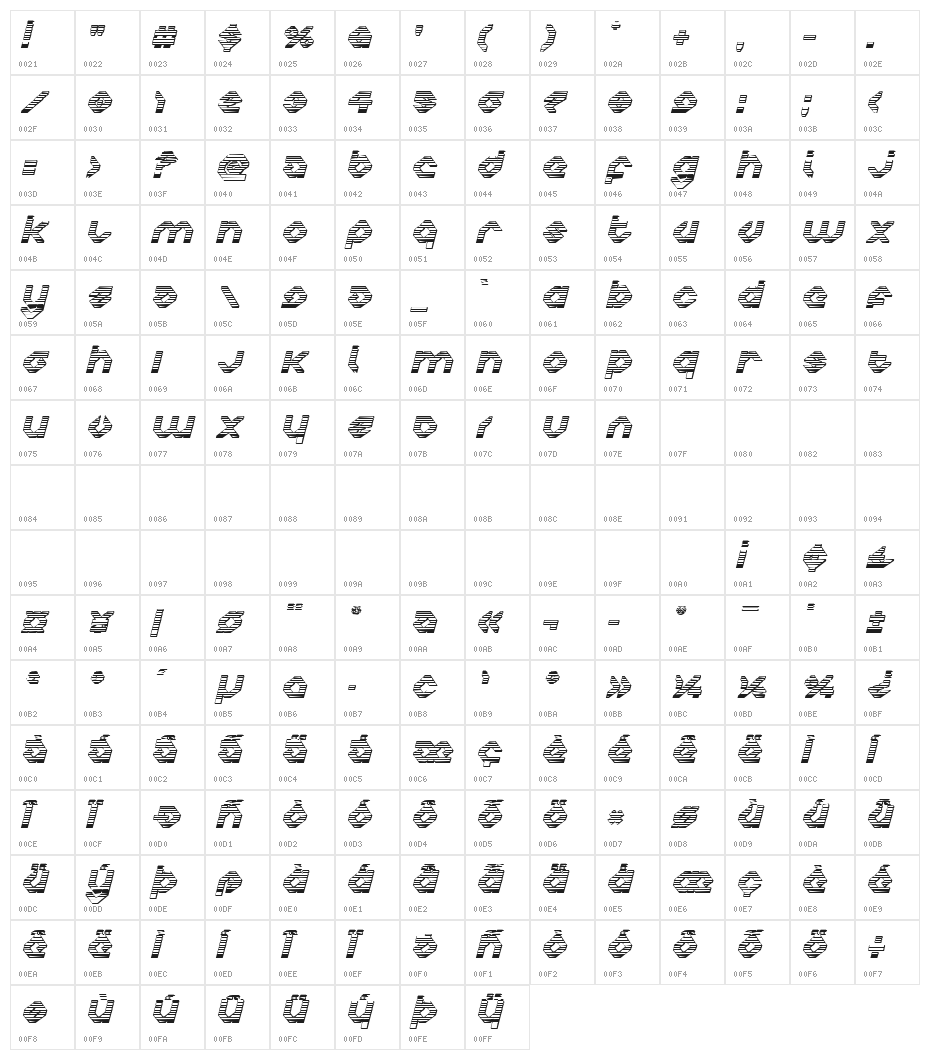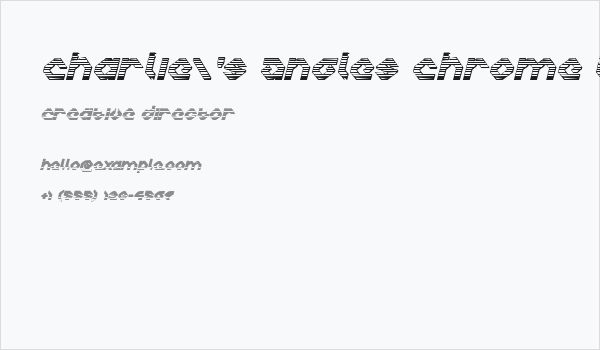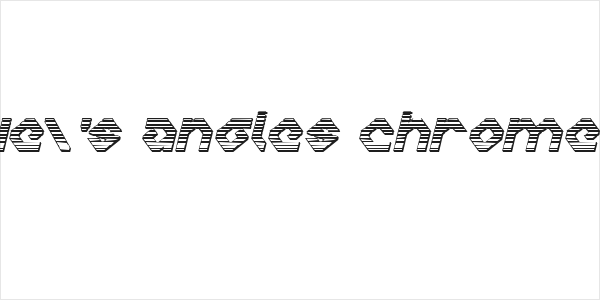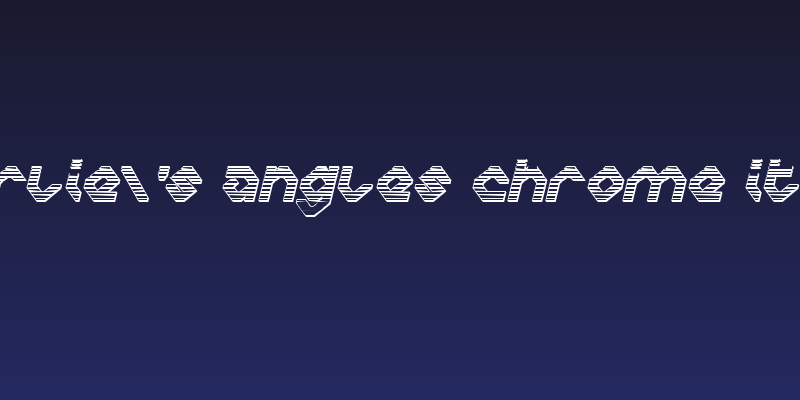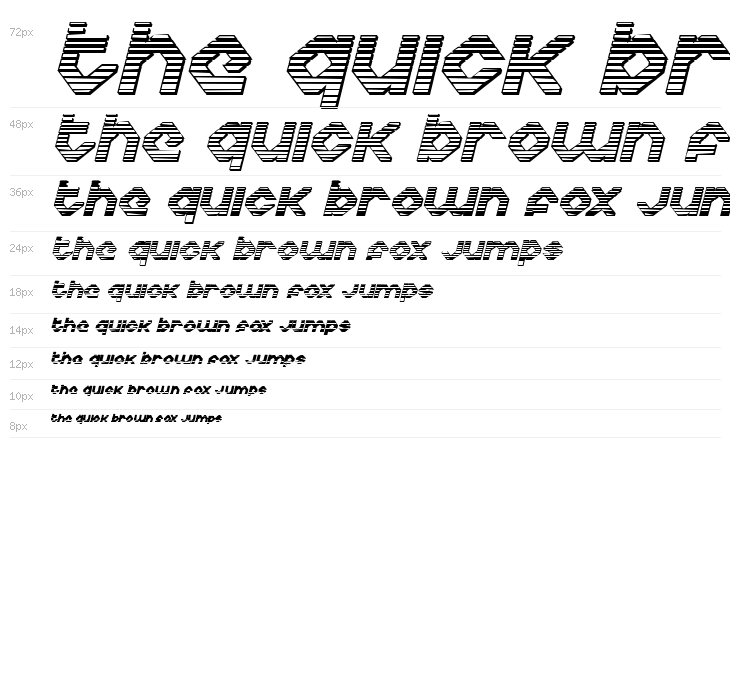
Charlie's Angles Chrome Italic Font
Charlie's Angles Chrome Italic Description
This font features a unique, striped design that gives each character a three-dimensional, chrome-like appearance. The italic slant adds a dynamic and futuristic feel, making it stand out with its bold and decorative style. The uppercase and lowercase letters maintain a consistent pattern, while the numerals and special characters follow the same aesthetic, ensuring uniformity across all glyphs. The font's design is reminiscent of retro-futuristic themes, with a playful yet sophisticated edge. Its distinct style makes it suitable for projects that require a strong visual impact.
| Overall Style | Futuristic, Retro |
| Proposed Projects | Ideal for sci-fi themed posters, video game titles, futuristic branding, and eye-catching headlines. |